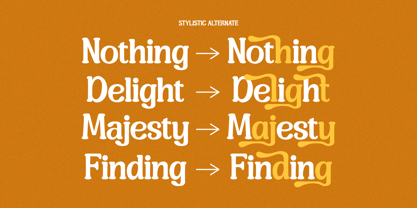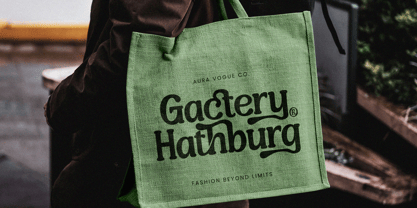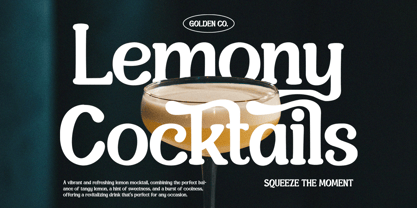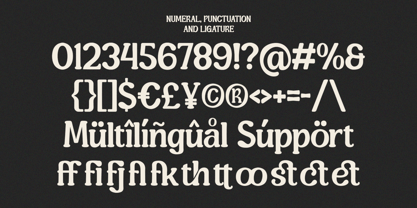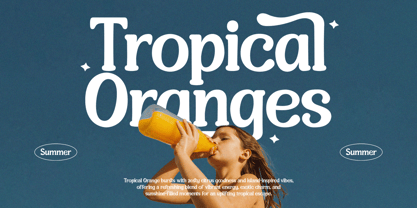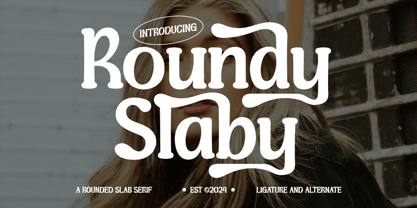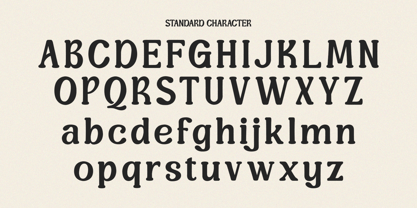
Roundy Slaby
by Inviline
The Roundy Slaby Font Family was designed by Muhammad Rizaldi and published by Inviline. Roundy Slaby contains 1 styles. More about this family
Rounded serif bold fonts feature thick, rounded edges that provide a friendly yet sturdy appearance. Ideal for headlines and branding, they balance modernity with warmth, enhancing readability while making a strong visual impact in creative designs.
Designers: Muhammad Rizaldi
Foundry: Inviline